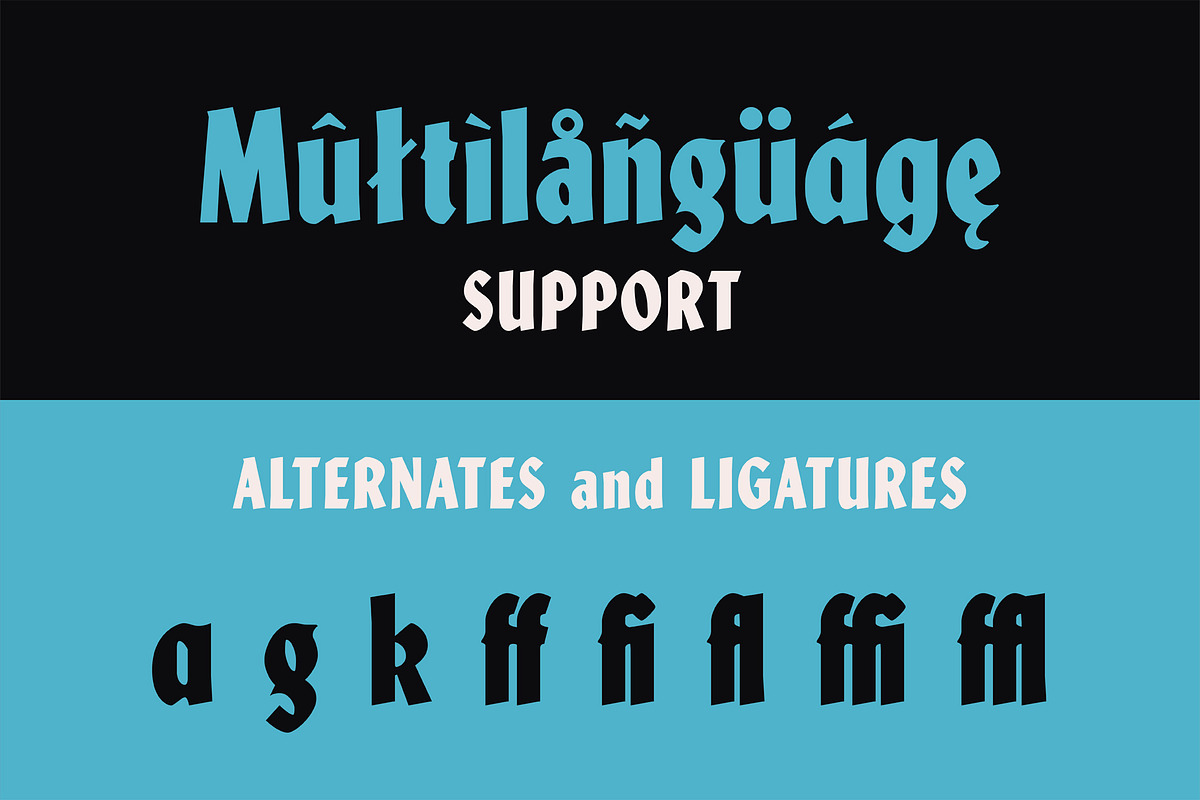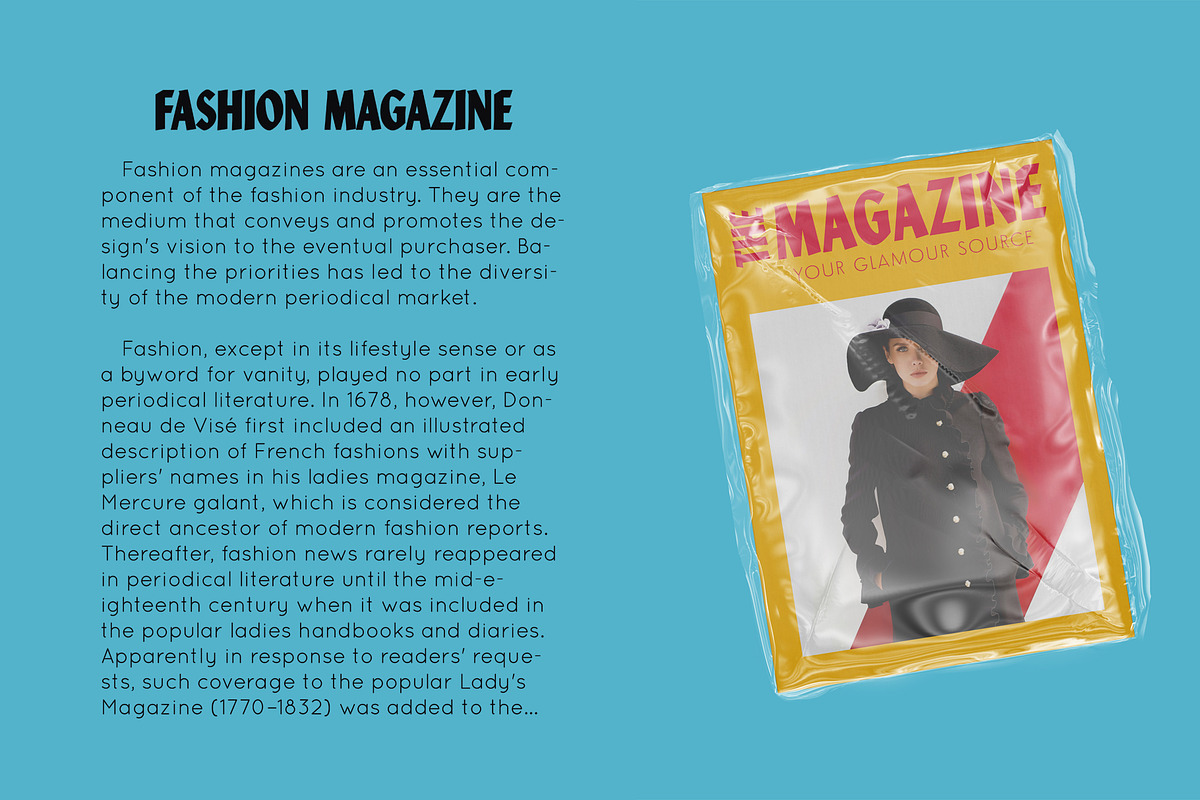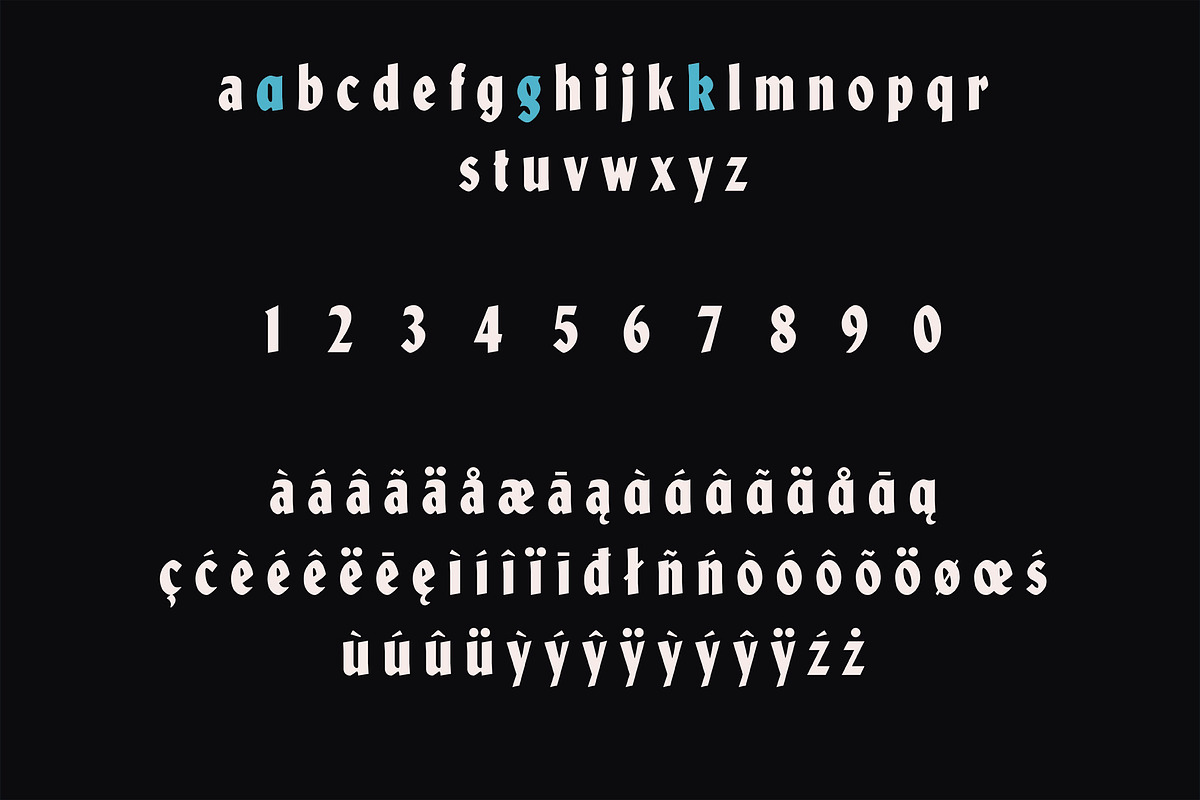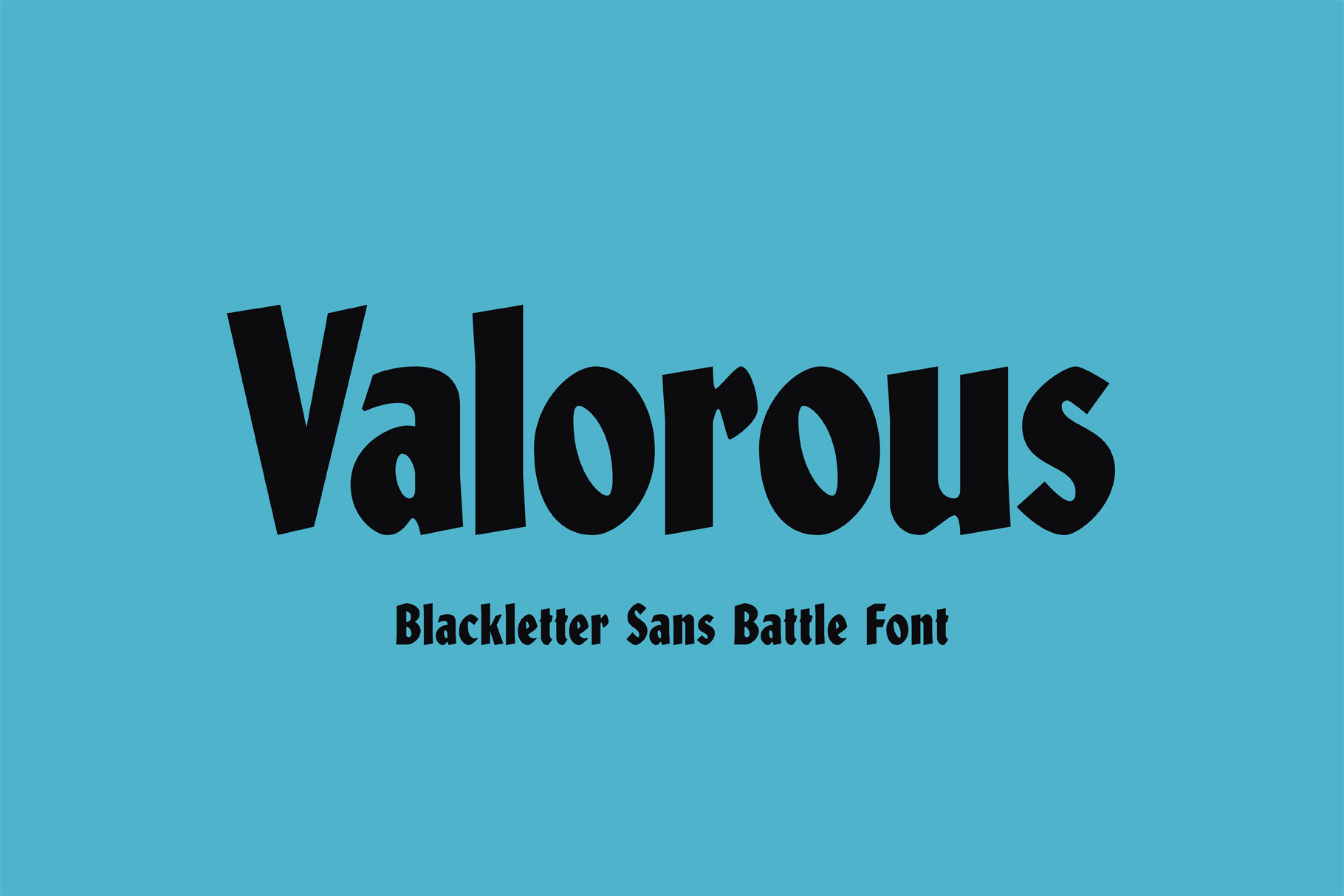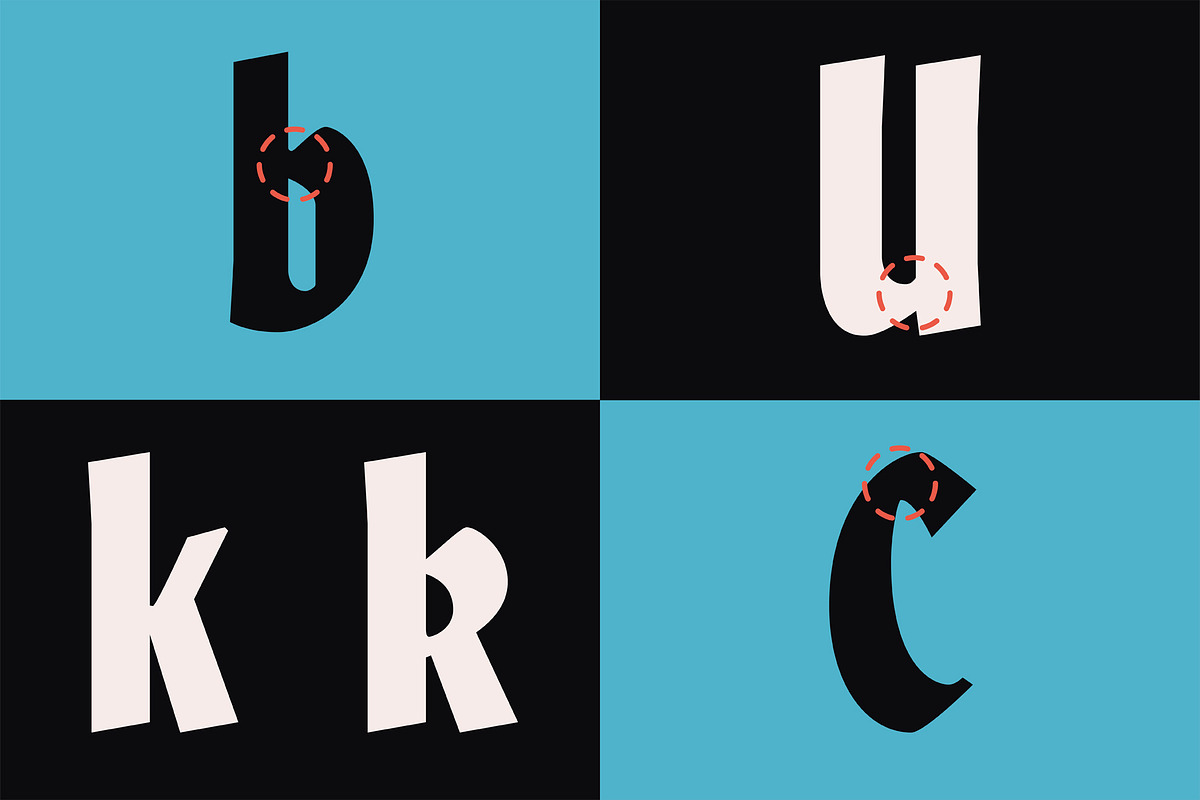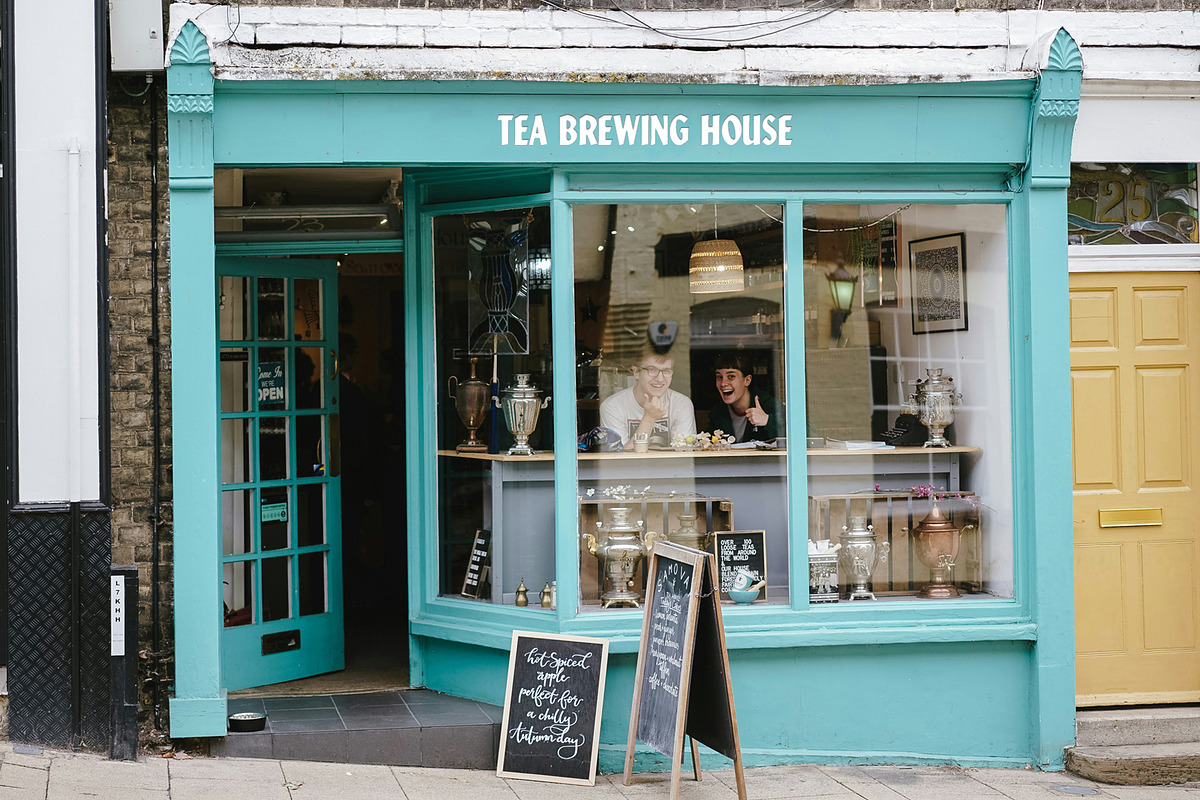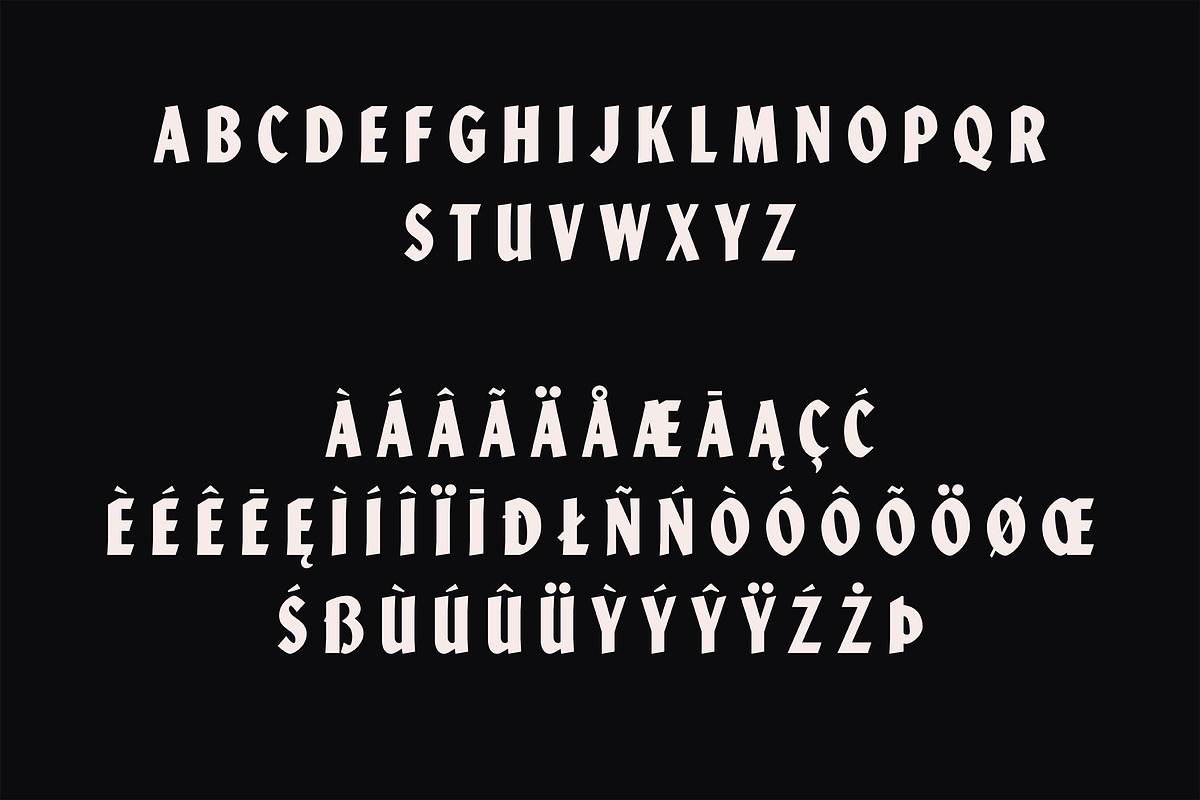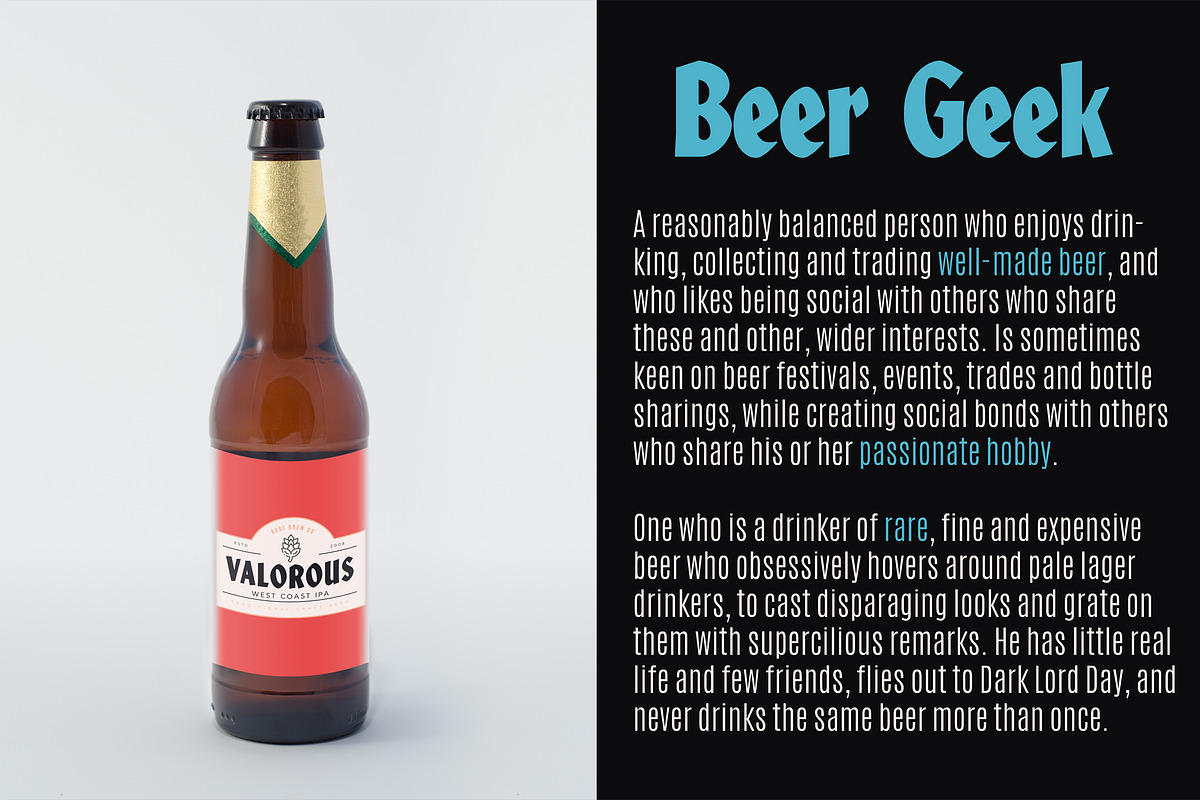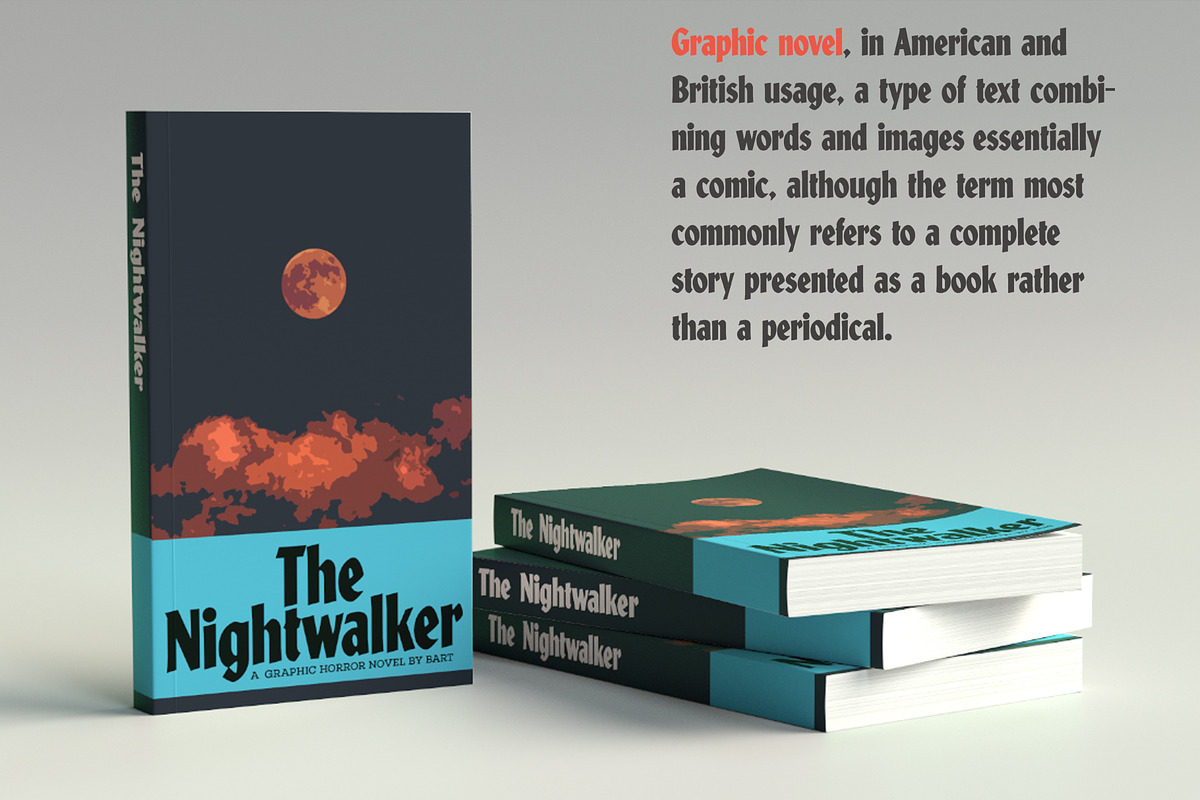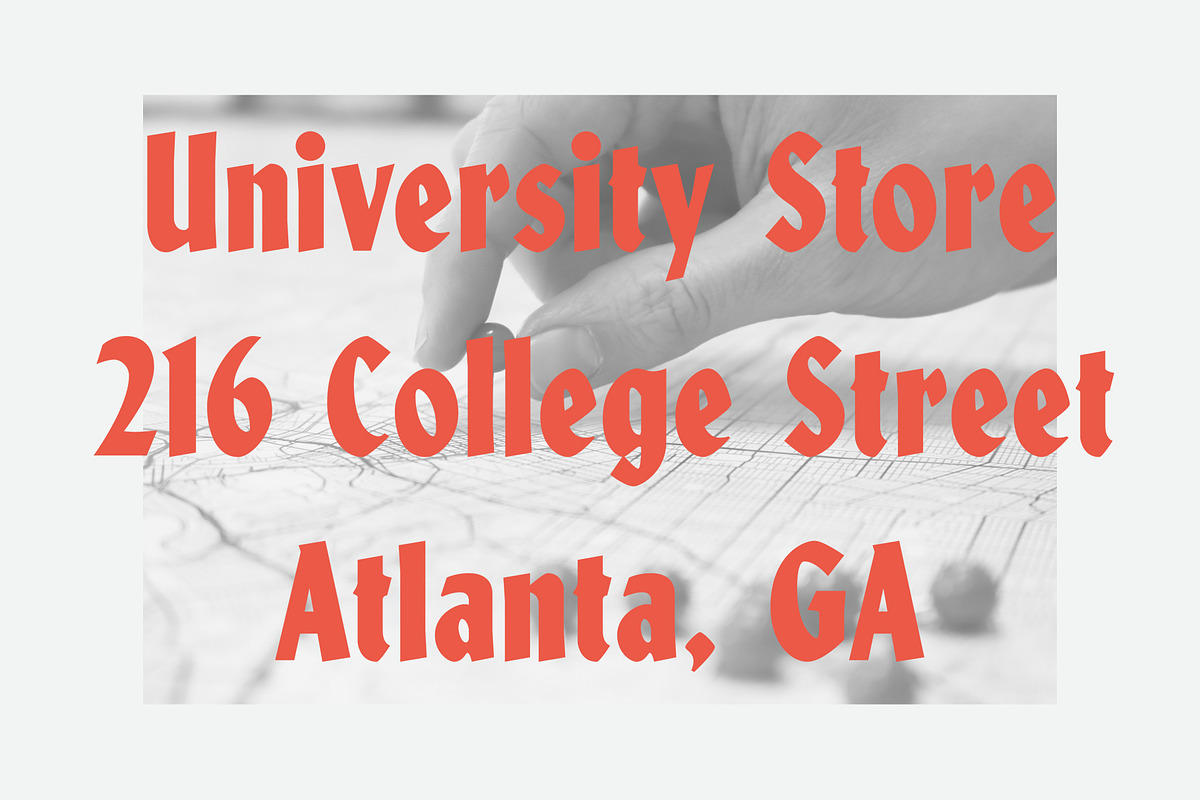
Valorous Display Font
Valorous is a bold, modern display font with sharp geometric forms and strong personality. Its dramatic lines and contemporary style make it perfect for branding, editorial headlines, logotypes, posters, and apparel design. With bold weight and matching italics, it offers flexibility for creative typographic hierarchy. This typeface supports extended Latin characters for multilingual projects. Pair Valorous with clean sans-serif fonts, minimal layouts, or textured backgrounds like halftone or vintage paper to highlight its bold nature. Ideal for designers looking for a stylish modern edge in web graphics, packaging, or print campaigns.
Valorous comes with 2 styles:
- Italic
Language support: ÀÁÂÃÄÅĀĄ Æ ĆÇ ÈÉÊËĒĘ ÌÍÎÏĪ Ð Ł ŃÑ ÒÓÔÕÖŒØ Ś ÙÚÛÜ ỲÝŶŸ ŻŹ Þß àáâãäåāą æ ćç èéêëēę ìíîïī ð ńñ òóôõöœø ś ùúûü ỳýŷÿ żź þ Discretionary Ligatures: ff, ffi, ffl, ft, fi, fl